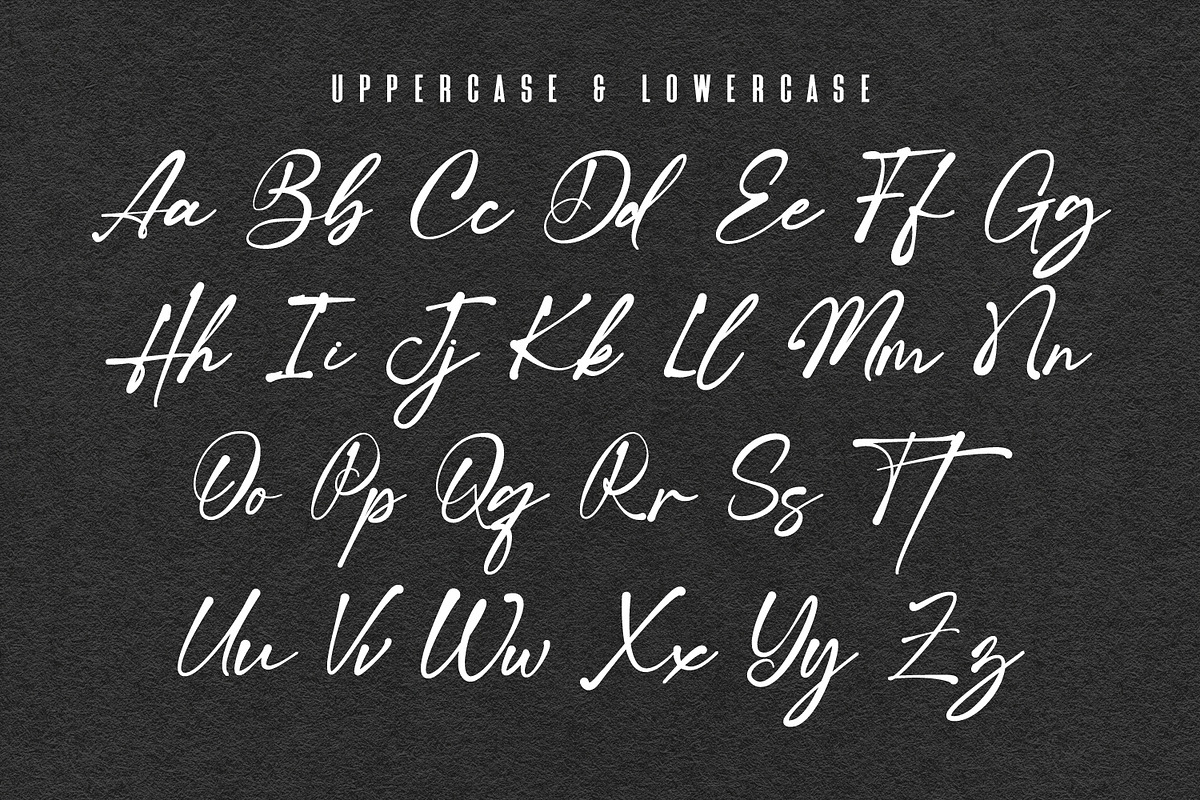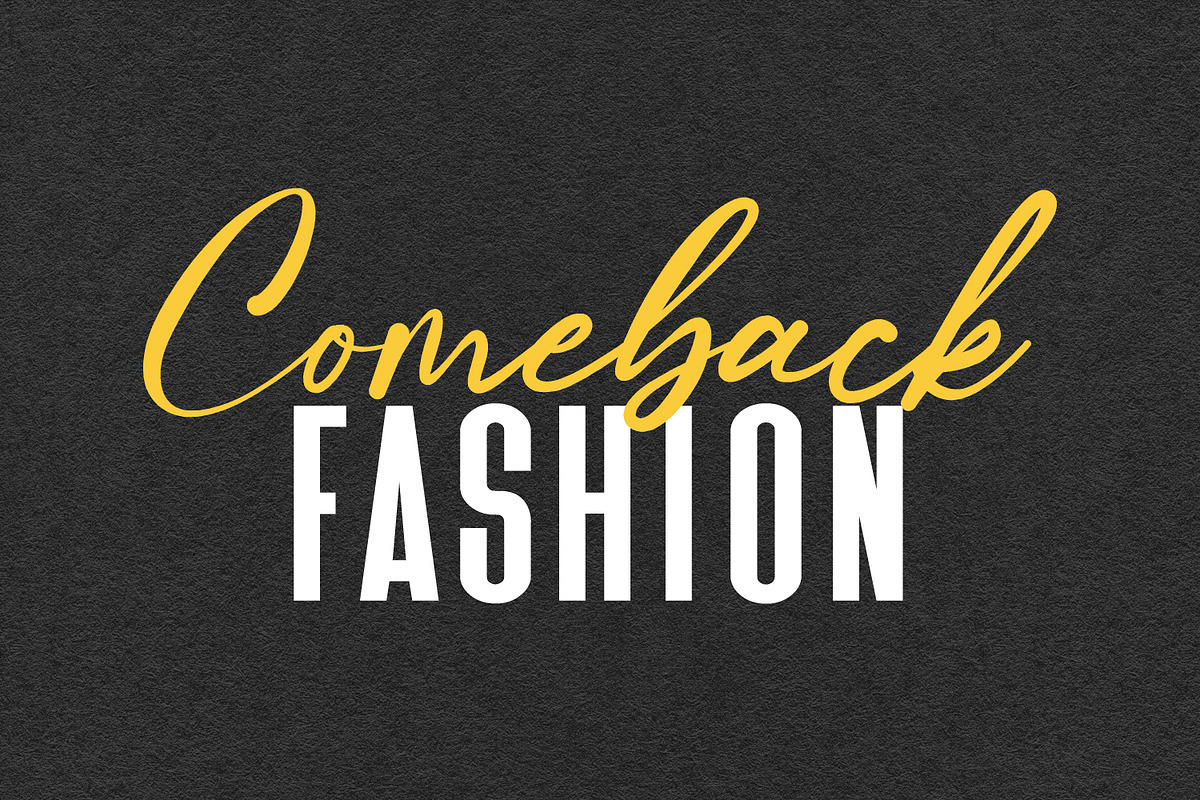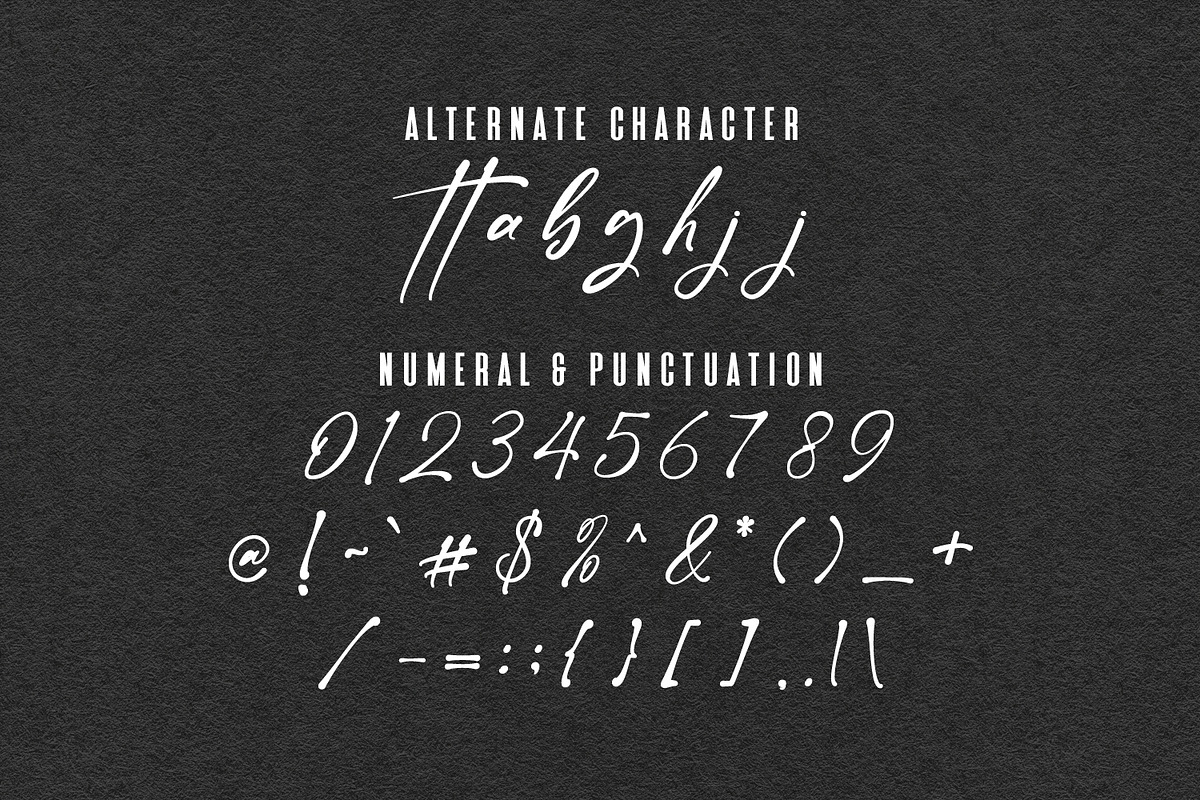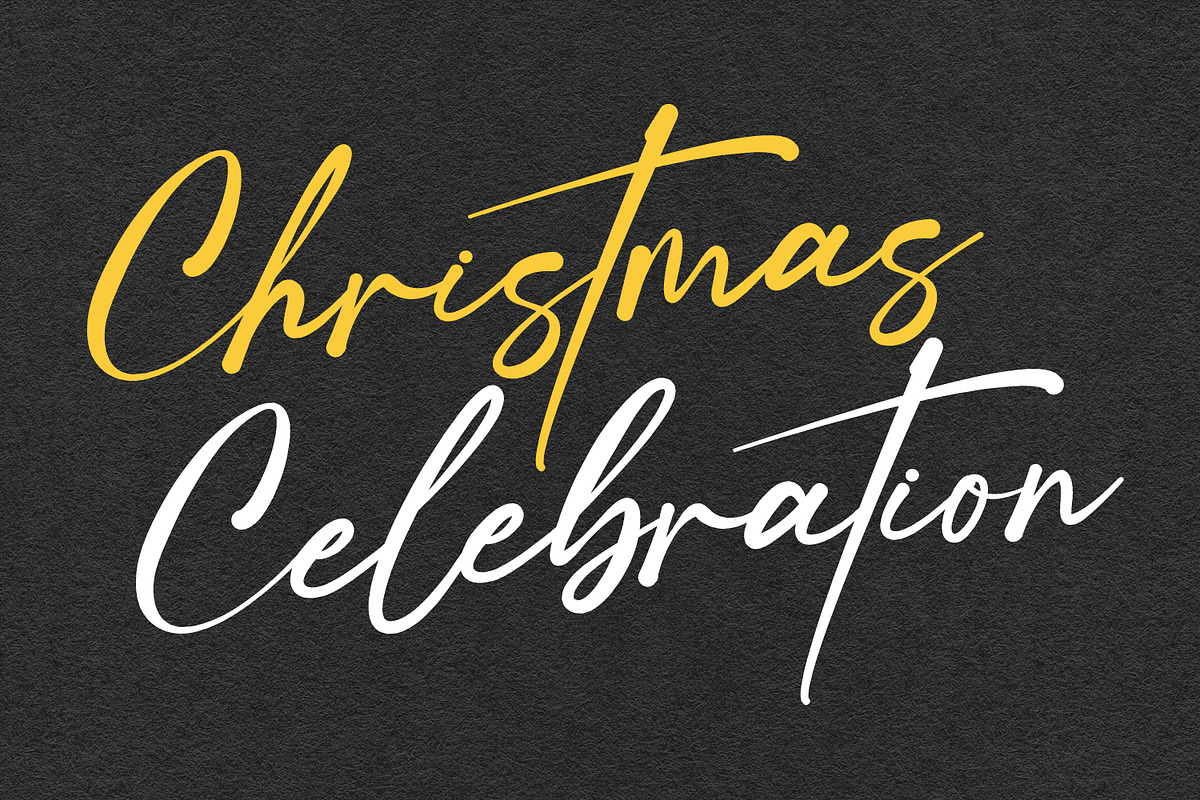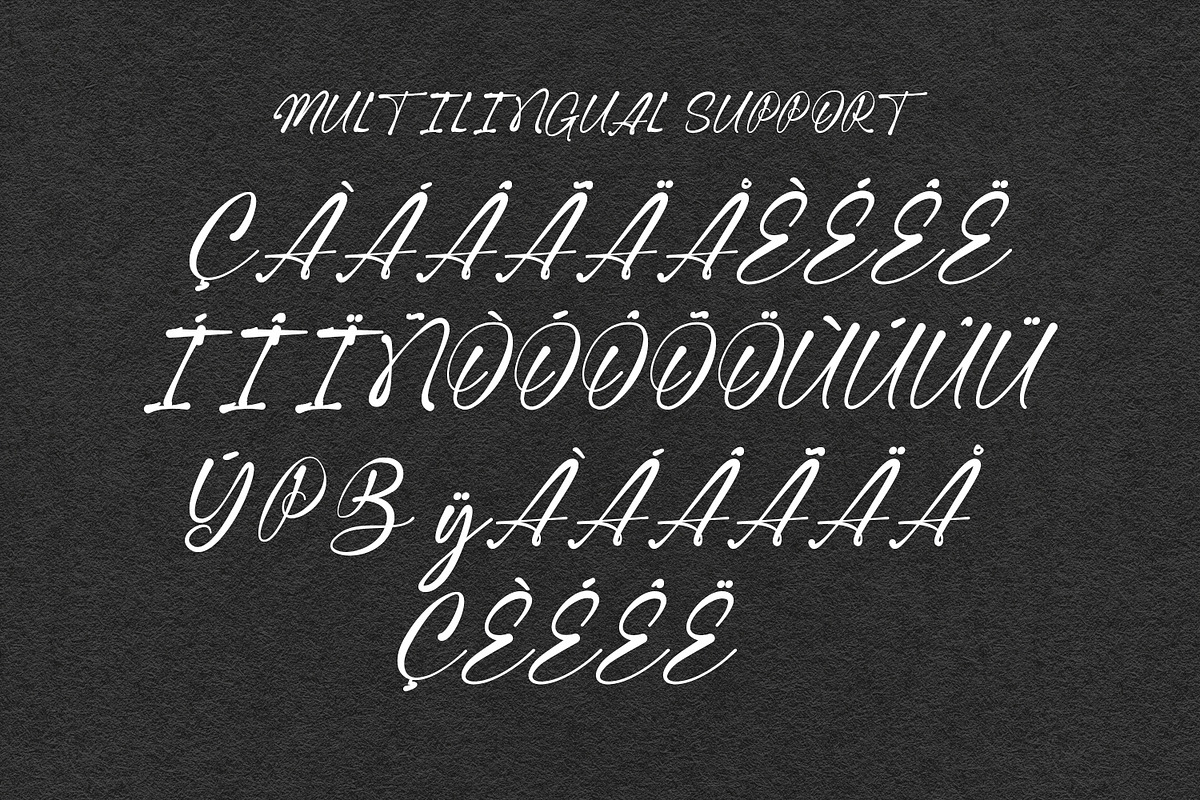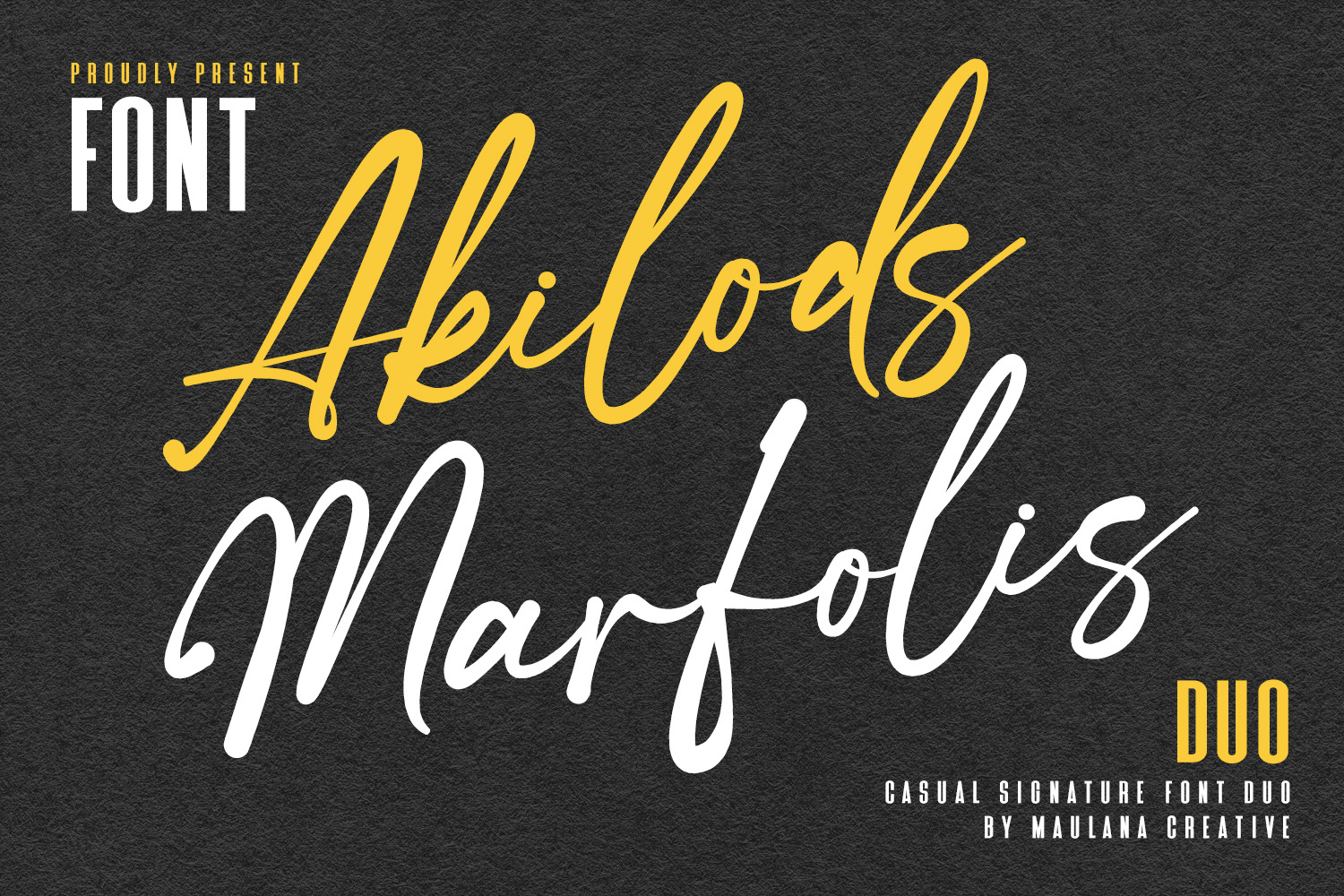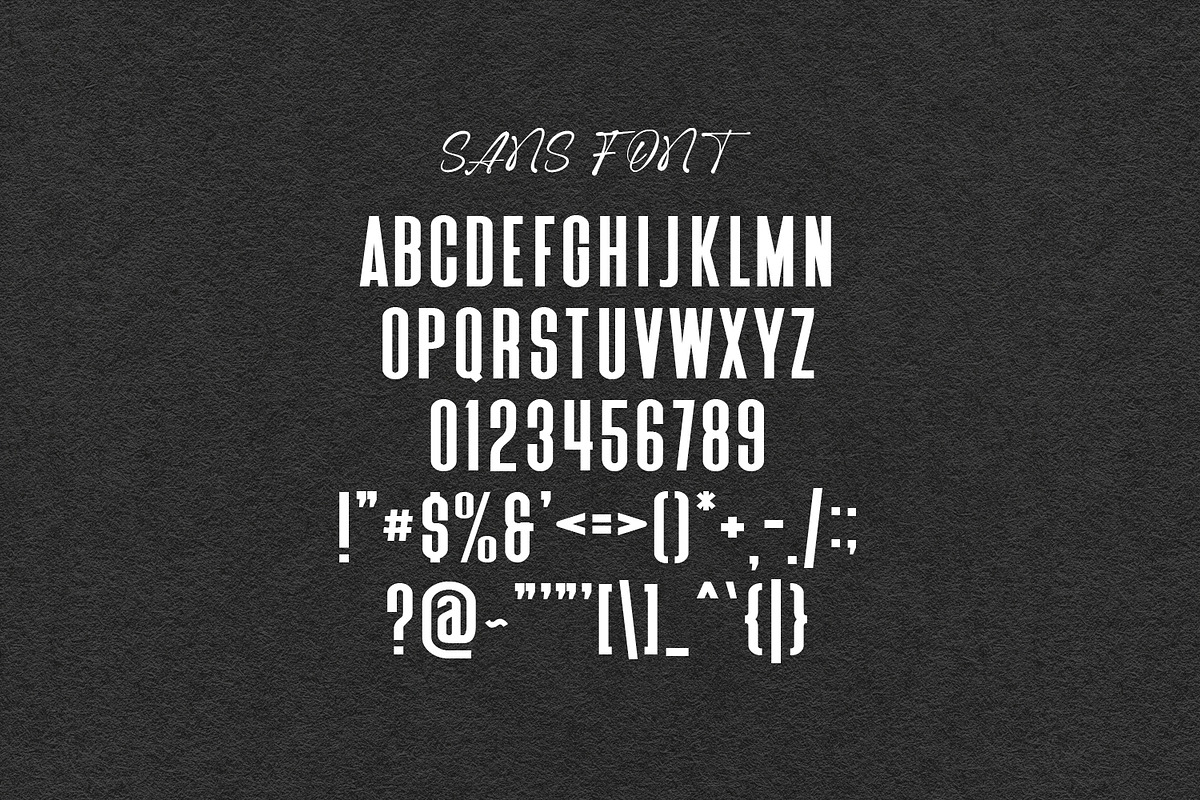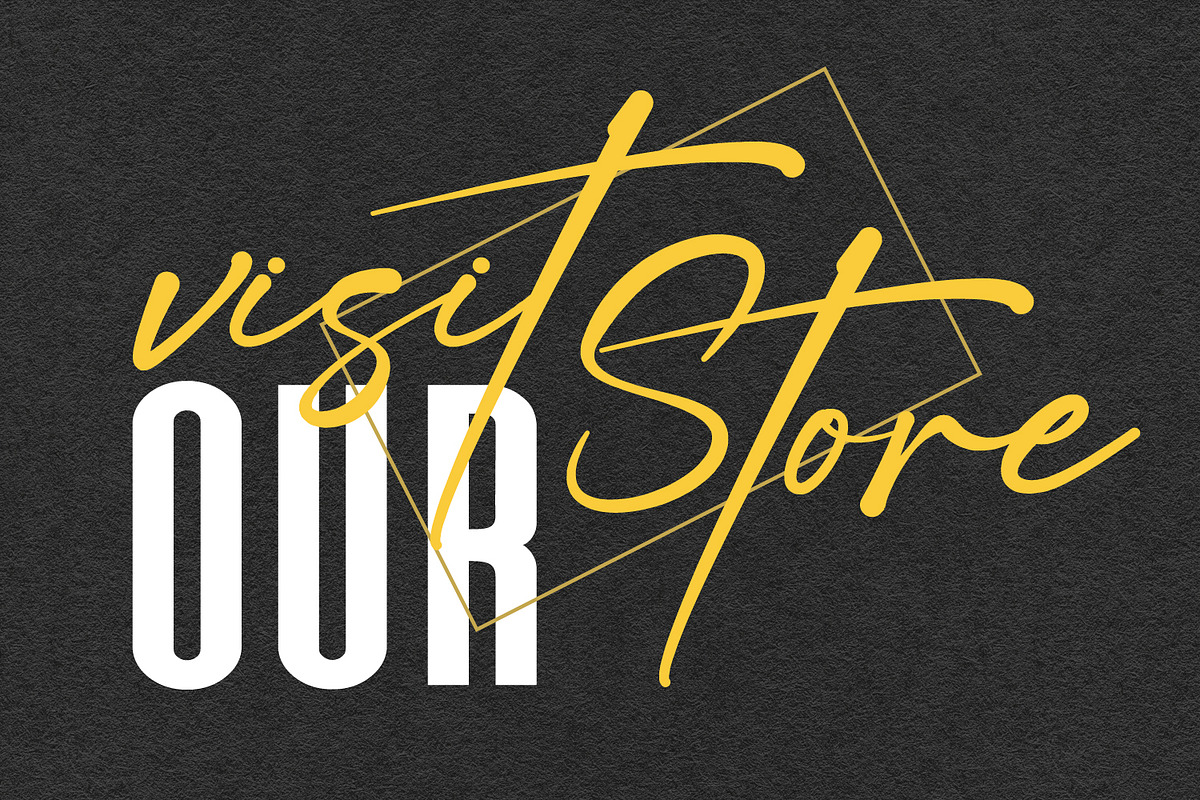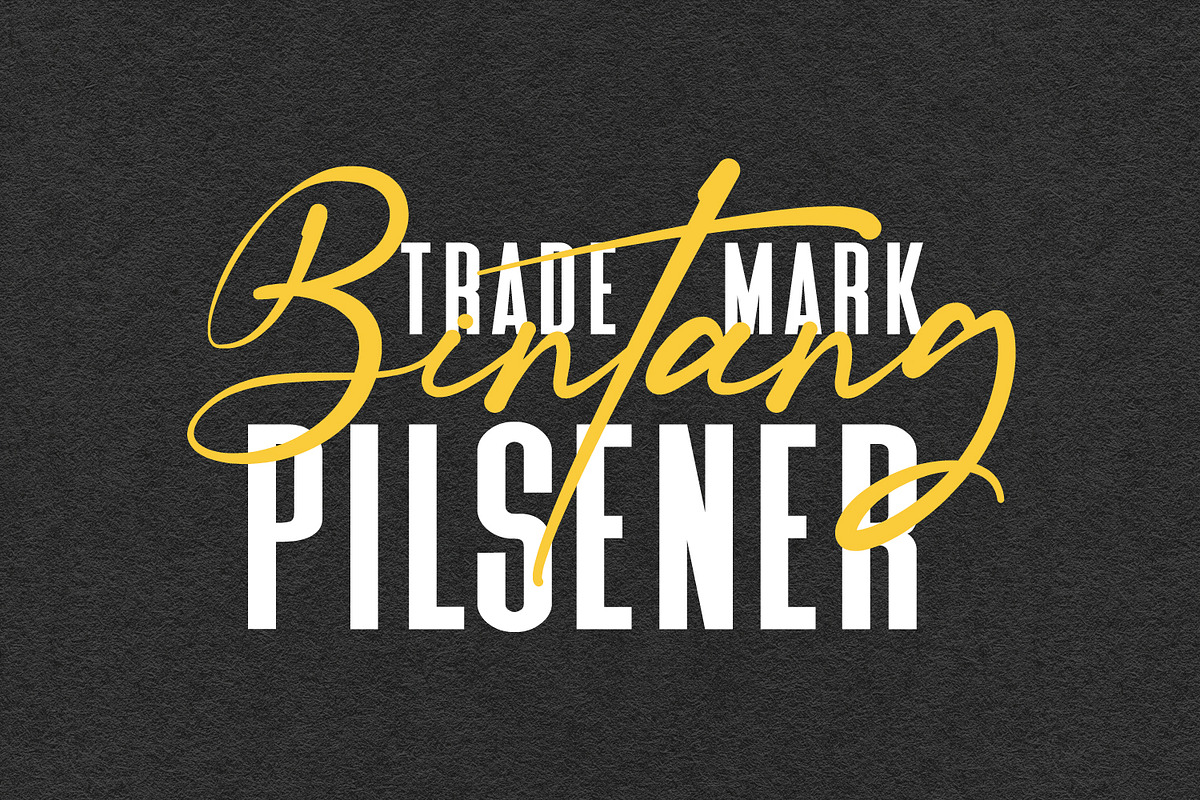
Akilods Marfolis Font Duo
Give your designs an authentic brush handcrafted feel. Akilods Marfolis include ligature and alternate. Akilods Marfolis include free sans serif. Akilods Marfolis is perfectly suited to signature, stationery, logo, typography quotes, website header, branding and more.